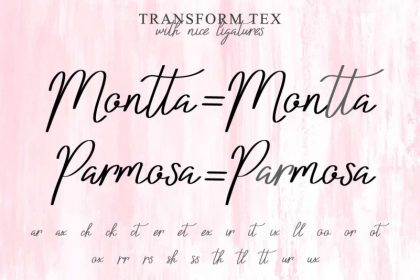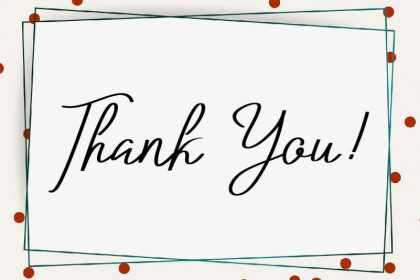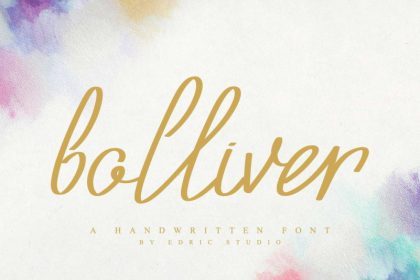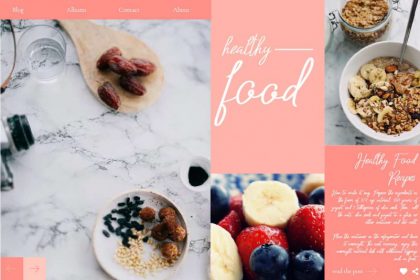
Bolliver Handlettered Font
The newest font from our lovely artist. A handwriting font : Redalle Handlettered Font! This is a handwriting font, handcrafted from our Studio here in, Indonesia. The artists/designers of this beautiful tyeface is Fahri F and Sarah Suci. Bolliver Handwriting Font is an exclusive handwriting script typeface with manual pen style. This font has a stunning characters set, perfectly managed with well spaced and kerning. The theme style of this font will elegant, vintage, stylish and sophisticated style. You wont find any where else, the font like Bolliver Handwriting Font.